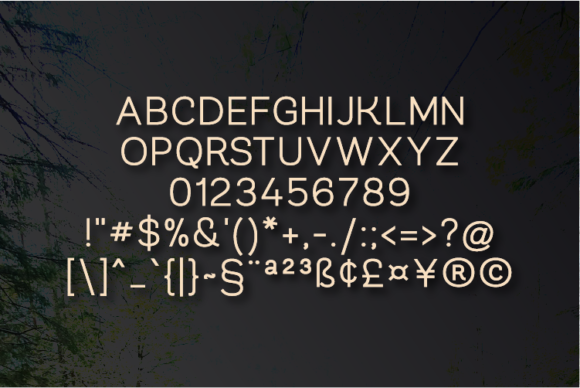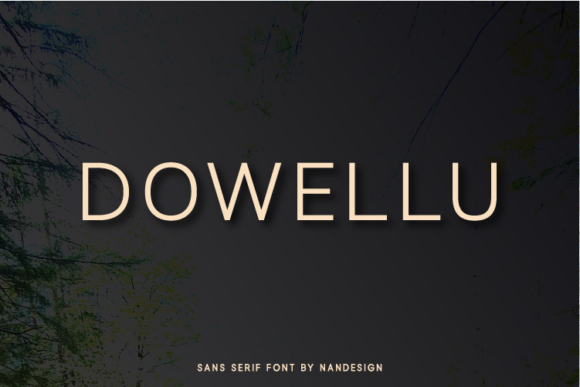
Dowellu Font: Elevate Your Design with a Unique Sans Serif Style
In the world of typography, fonts play a crucial role in conveying messages, expressing creativity, and setting the tone for a brand or design. With the numerous font options available, finding the perfect one that balances tradition and modernity can be a daunting task. However, if you’re looking for a distinct sans serif font that seamlessly blends classic influences with a contemporary aesthetic, look no further than Dowellu Font.
What is Dowellu Font?
Dowellu is a thoughtfully crafted sans serif font that boasts a unique character set, making it an excellent choice for designers, crafters, and anyone seeking to add a touch of sophistication to their projects. Its well-balanced Latin details contain distinctive contrasts, which set it apart from other fonts in its category.
Key Features of Dowellu Font
• Unique Sans Serif Design: Dowellu’s sans serif design ensures a clean and modern look, making it perfect for a wide range of applications, from branding and advertising to packaging and digital media.
• Traditional Influences: The font’s traditional influences are subtly woven into its design, giving it a sense of heritage and timelessness.
• Contemporary Aesthetic: Dowellu’s contemporary aesthetic ensures that it remains fresh and relevant, making it an excellent choice for designers looking for a font that will stand out in a crowded design landscape.
• Distinctive Contrasts: The font’s distinctive contrasts add a level of sophistication and elegance, making it perfect for projects that require a touch of refinement.
• Maximum Versatility: Dowellu’s versatility makes it an excellent choice for a wide range of applications, from headings and titles to body text and captions.
Why Choose Dowellu Font?
• Exquisite yet Subtle Look: Dowellu’s unique design ensures that your project will stand out without being overpowering, making it perfect for designs that require a touch of elegance.
• High Readability: The font’s clean design and well-balanced details ensure high readability, making it perfect for body text and captions.
• Flexibility: Dowellu’s versatility makes it an excellent choice for a wide range of applications, from print materials to digital media.
• Pair it with Other Fonts: Dowellu pairs well with other fonts, making it an excellent choice for designs that require a combination of fonts.
• Experiment with Font Sizes: The font’s versatility makes it suitable for a wide range of font sizes, from headings and titles to body text and captions.
• Play with Colors: Dowellu’s clean design makes it perfect for use with a wide range of colors, from bold and bright to subtle and muted.
In conclusion, Dowellu Font is a unique sans serif font that offers a perfect blend of traditional influences and contemporary aesthetic. Its well-balanced Latin details, distinctive contrasts, and maximum versatility make it an excellent choice for designers, crafters, and anyone seeking to add a touch of sophistication to their projects. Whether you’re working on a branding project, creating packaging, or designing digital media, Dowellu Font is sure to elevate your design and help you achieve an exquisite, yet subtle look.